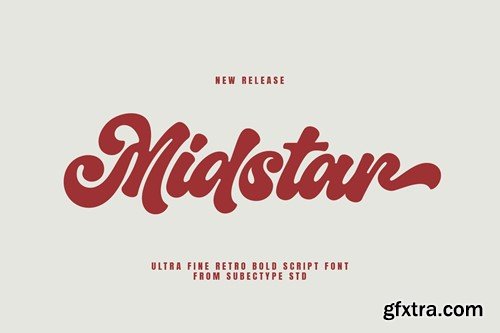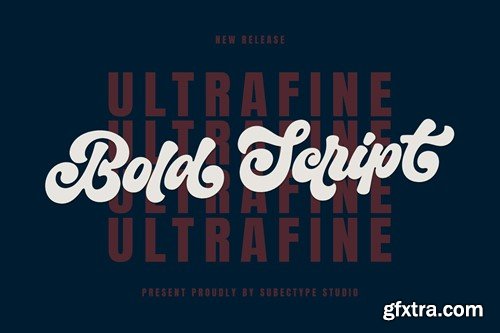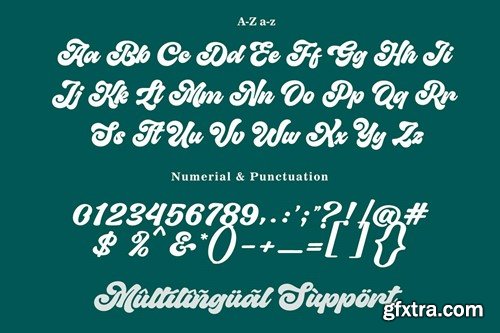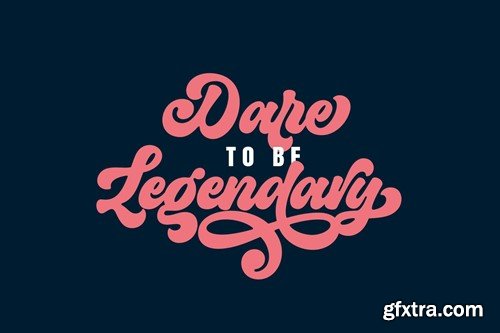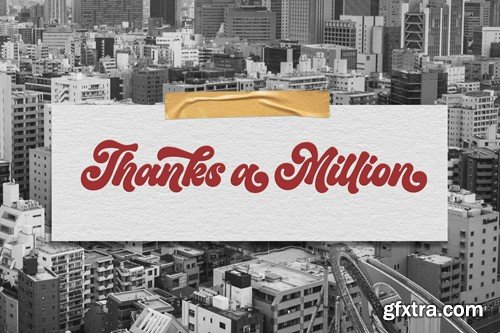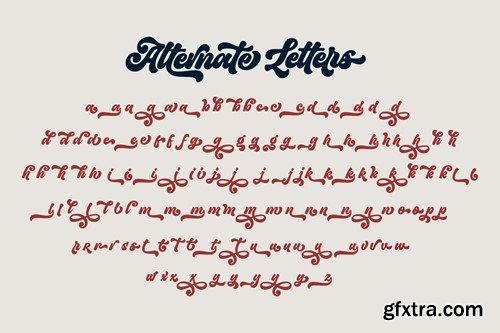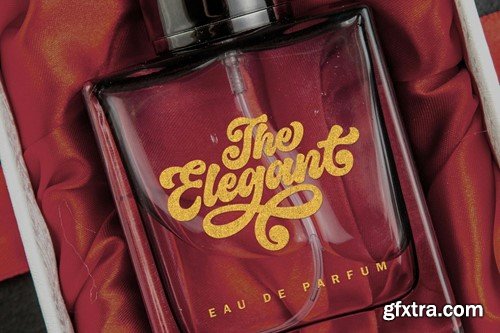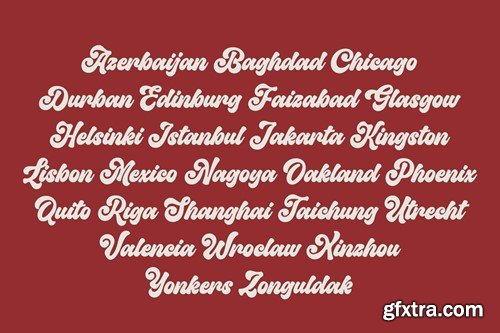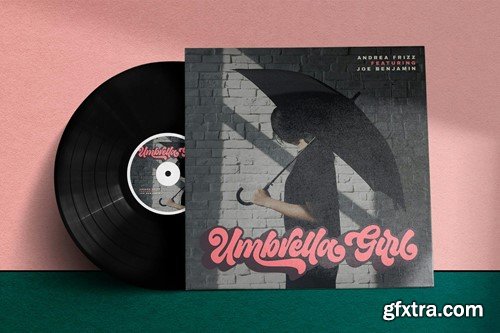
Midstar - Vintage Retro Font
Midstar is a Vintage retro font. Inspired from retro typography and lettering in the 70's and 80's combine with bold typography style. This font perfect for vintage and retro design, badge, logos,t-shirt, poster, branding, packaging, signage, book coverand so much more! Whats Include: Midstar OTF/TTF/WOFF Multilingual Support Alternate Letters ligatures SVG for Alternative Letters Thankyou Subectype Studio